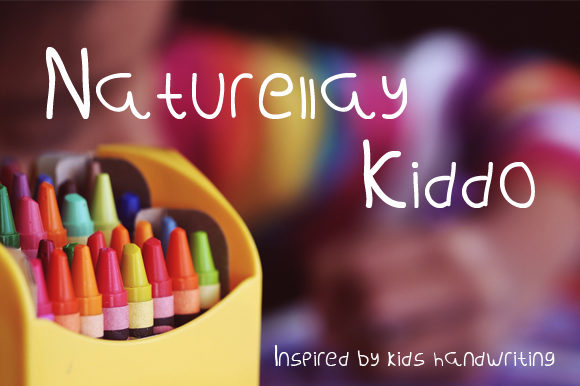
Naturellay Kiddo Font
About Naturellay Kiddo Font
The Naturellay Kiddo is inspired by the handwriting style of kids. It can be used to add a playful touch to every design.